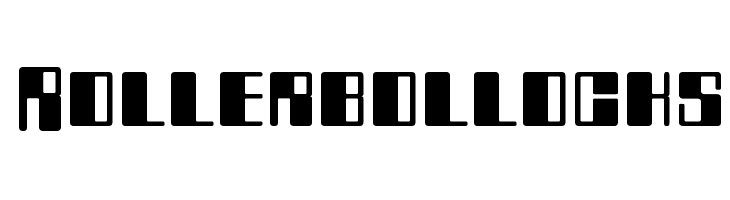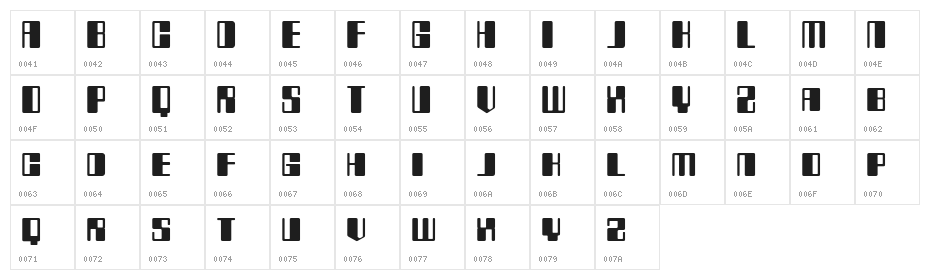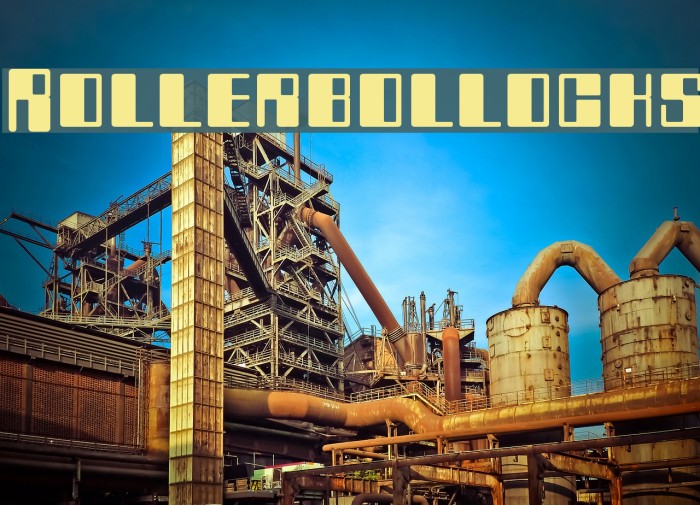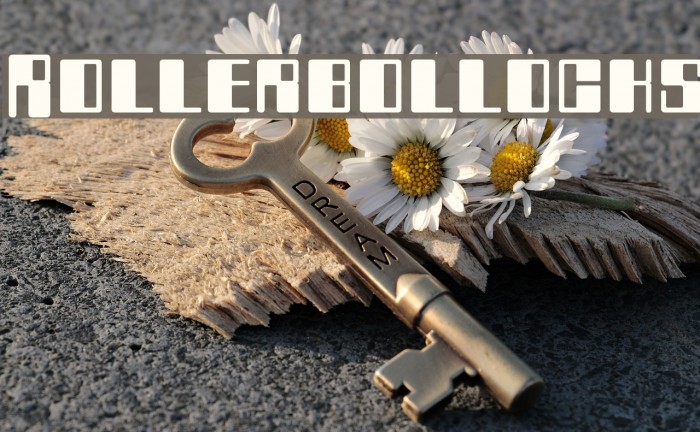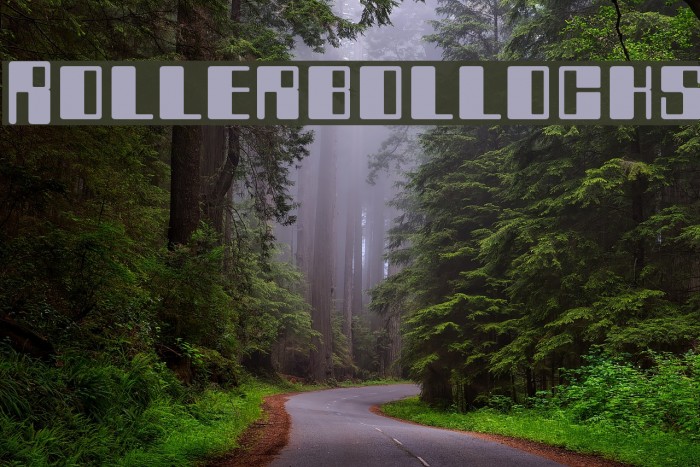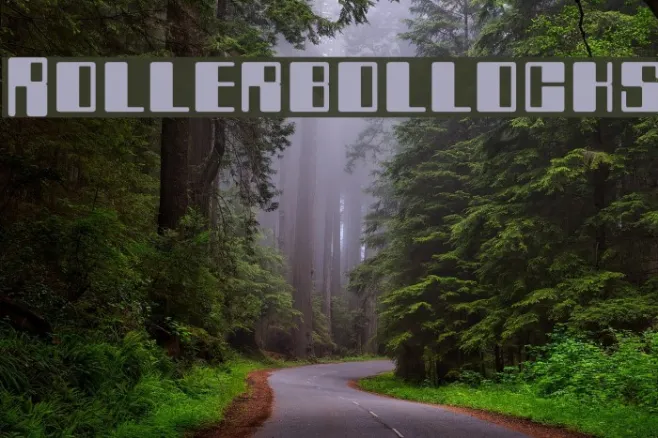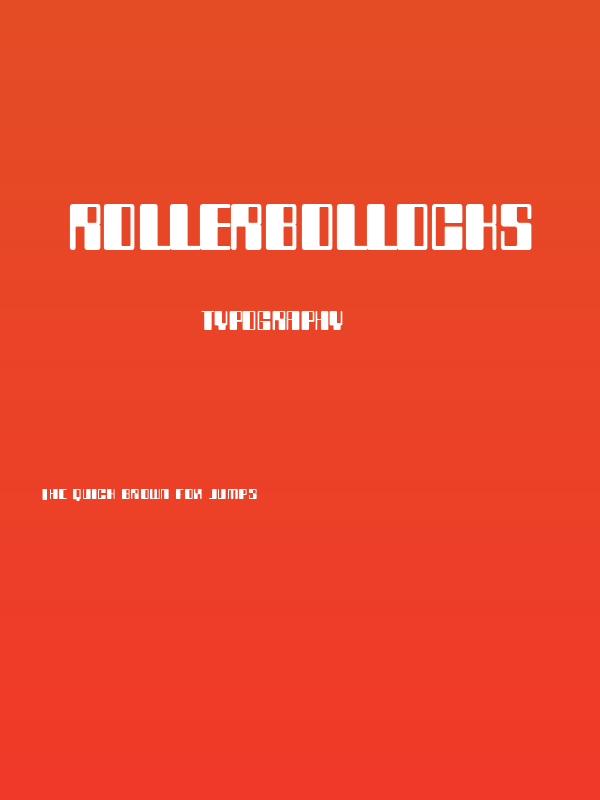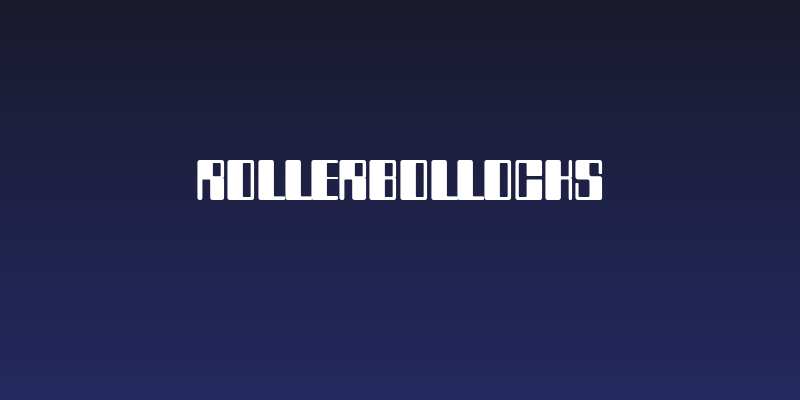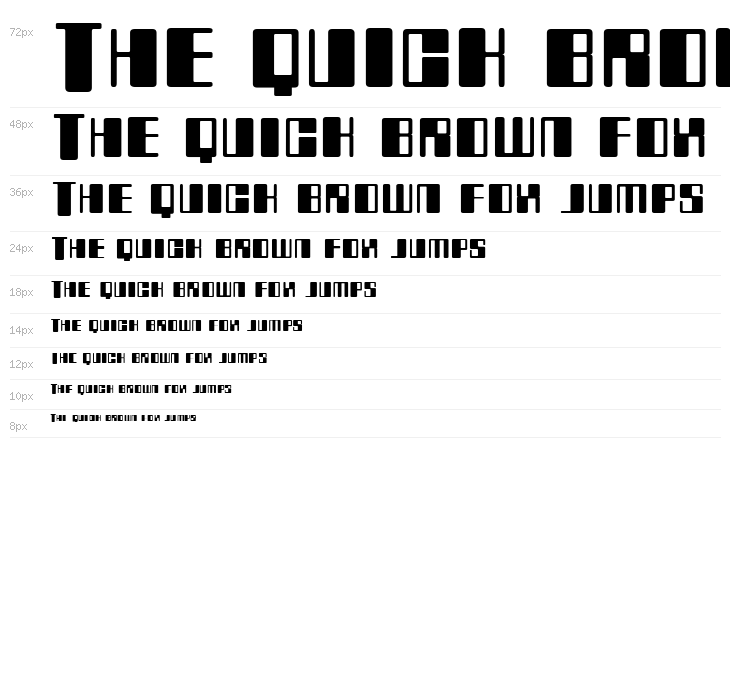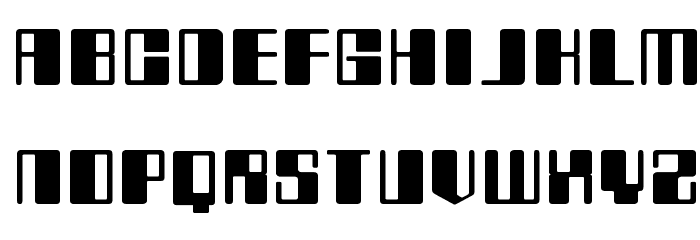
Rollerbollocks Font
Rollerbollocks Description
This font features a bold, geometric design with a strong emphasis on rectangular shapes and sharp angles. The uppercase letters are characterized by their uniform height and width, creating a cohesive and structured appearance. The lowercase letters maintain the same geometric style, ensuring consistency throughout the typeface. The numbers are designed with a similar rectangular form, enhancing the overall uniformity. Special characters are integrated seamlessly, maintaining the bold and structured aesthetic. This font's distinct style makes it suitable for projects that require a modern and impactful visual presence.